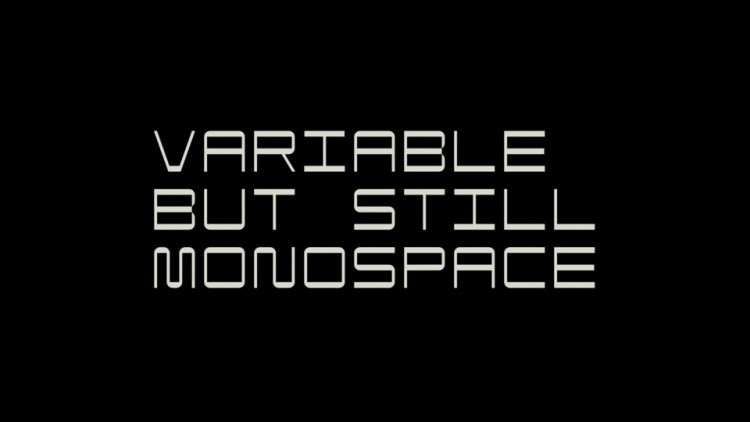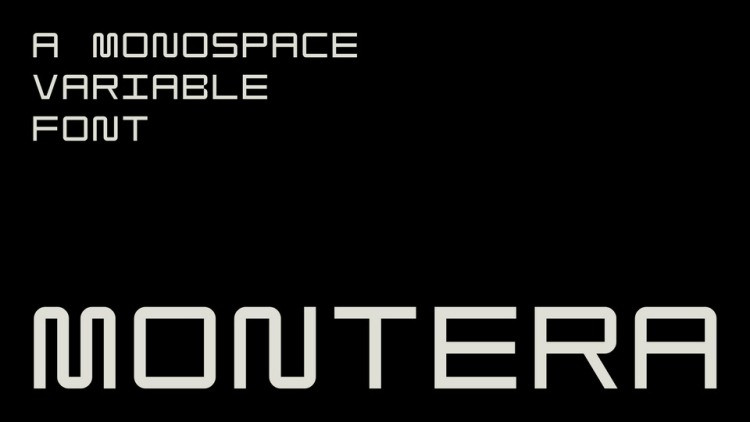
Montera Display Font is a monospace variable font comes with three main weights: Light Weight, Standard, and Heavy Duty. Montera is inspired by boxes and containers, It’s thickness on vertical stokes gives a playful yet orderly pattern.
| Designer Name: | Chuan Cheng |
| Classification: | Display Fonts, Stencil Fonts, Techno / Futuristic Fonts |